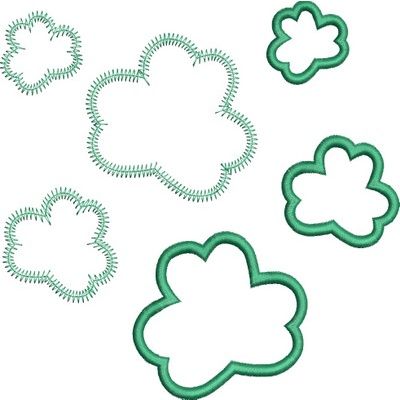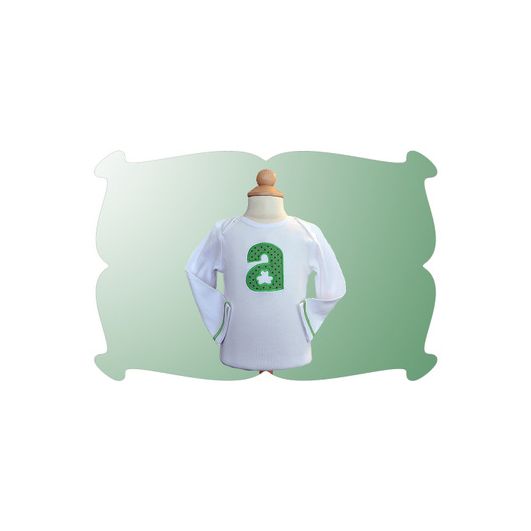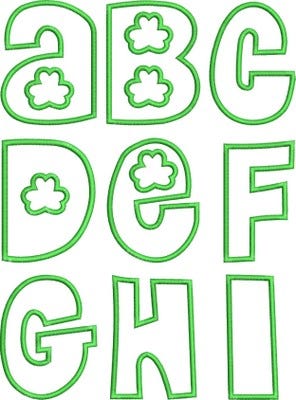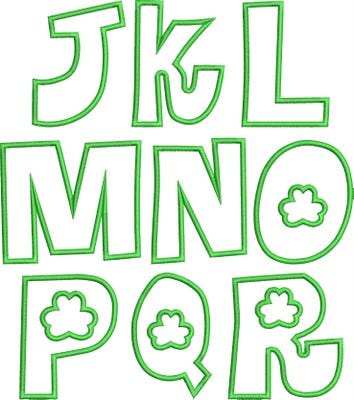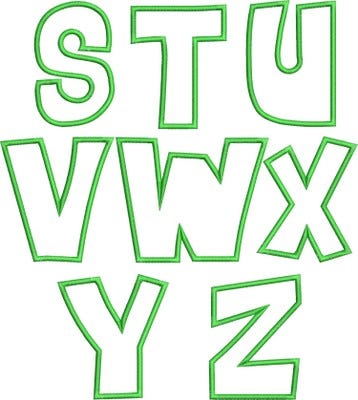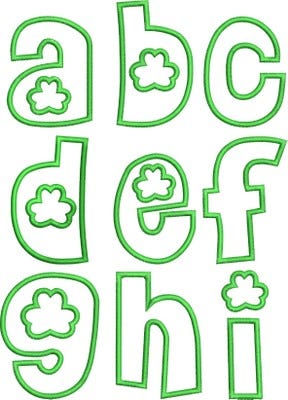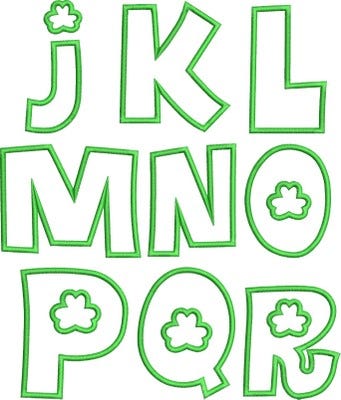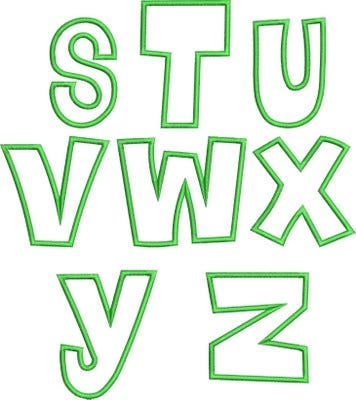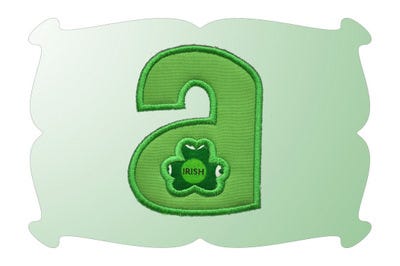
St Patricks Satin Stitch Applique Monogram Embroidery Font
St. Patrick's Applique Font
...for the luck of the Irish!
2 finishing styles: satin, zig zag
Upper case letters A thru Z. Lower case letters a thru z.
Isn't this a fun font?
It's sure to bring you luck all year long.
The font can be made two different ways....
You can cut out the shamrock.
Or you can applique the shamrock.
It's a fun way to mix up the look.
The St. Patrick's Applique Font includes applique letters in two styles:
1. Traditional satin stitches.
2. Quick and easy zig zag stitches.
This font includes "wonky" upper case letters in 3 sizes: 3.5, 4.5 and 5.5 inches.
Also included are "wonky" lower case letters in 3 sizes to coordinate with the upper case letters.
And you also get 3 sizes of shamrocks (1.3, 2, and 3 inch) for appliqueing onto shirt sleeves and pant legs.
Also great scattered (that would be "appli-scattered") onto pillowcases, towels and more!